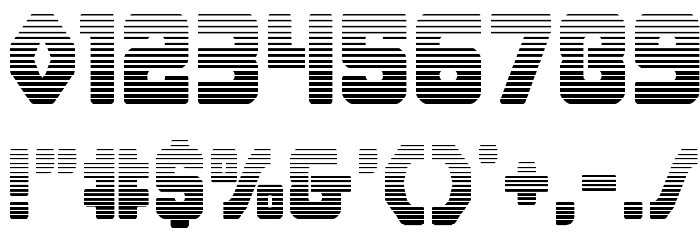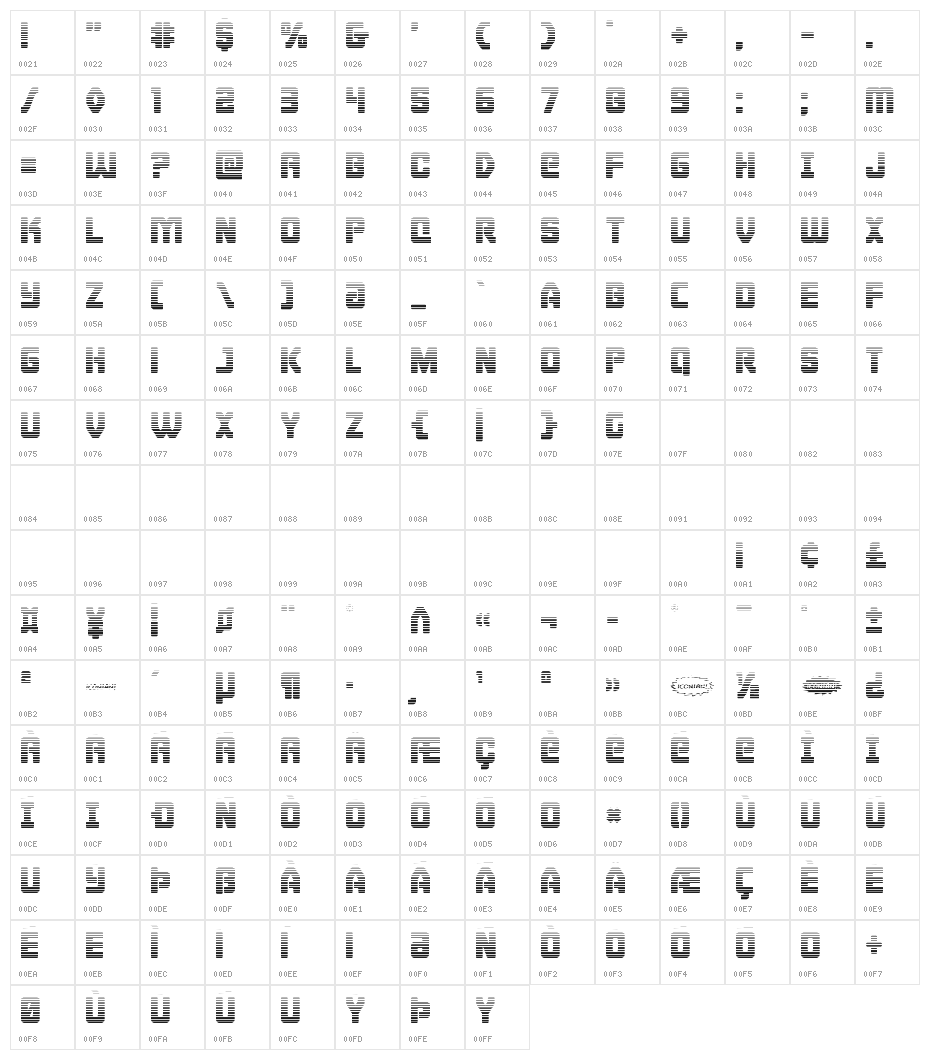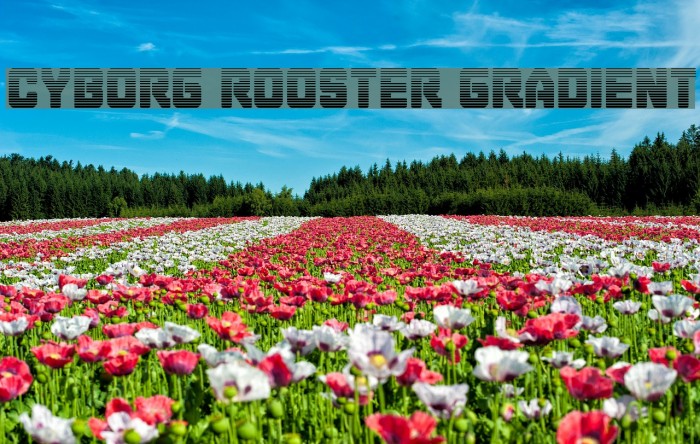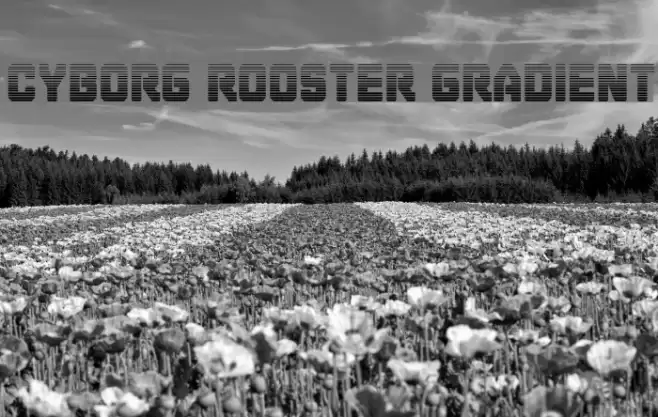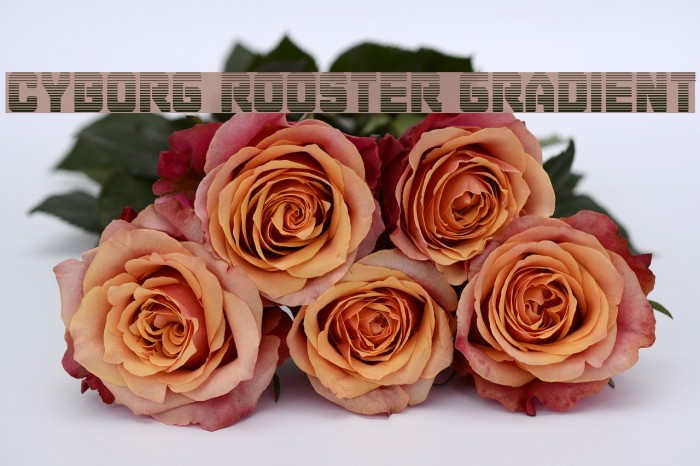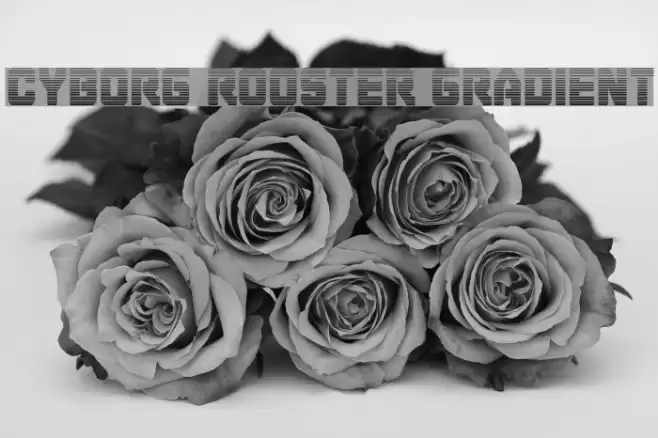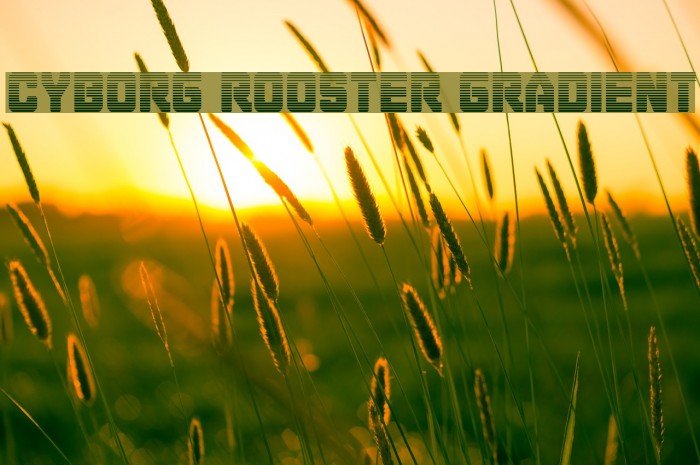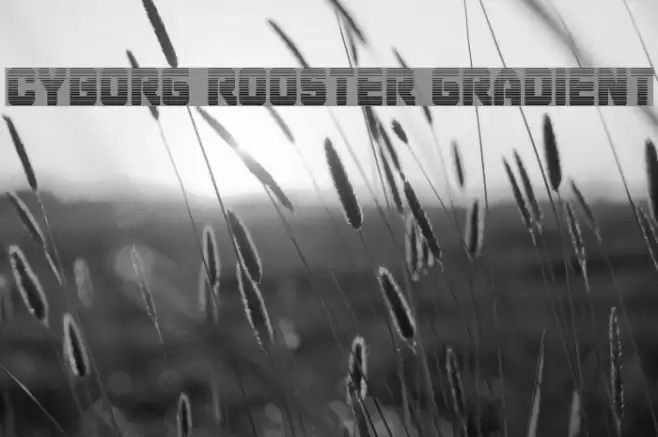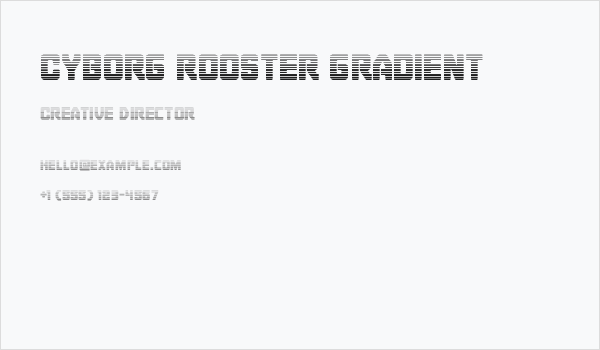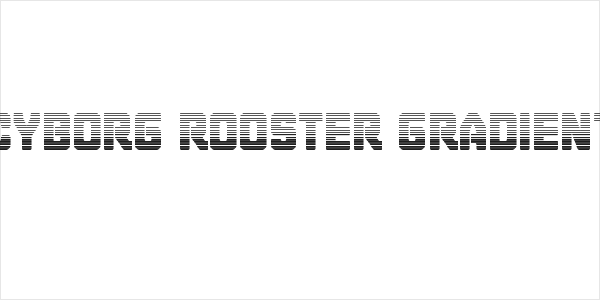
Cyborg Rooster Gradient Font
Cyborg Rooster Gradient Description
This font features a futuristic and bold design with a distinct horizontal line pattern that creates a gradient effect across each character. The uppercase and lowercase letters, as well as numbers and special characters, maintain a consistent style that emphasizes a high-tech, digital aesthetic. The geometric shapes and sharp angles contribute to its modern and innovative appearance, making it stand out in any design project. The font's unique structure is ideal for projects that require a strong visual impact and a sense of modernity.